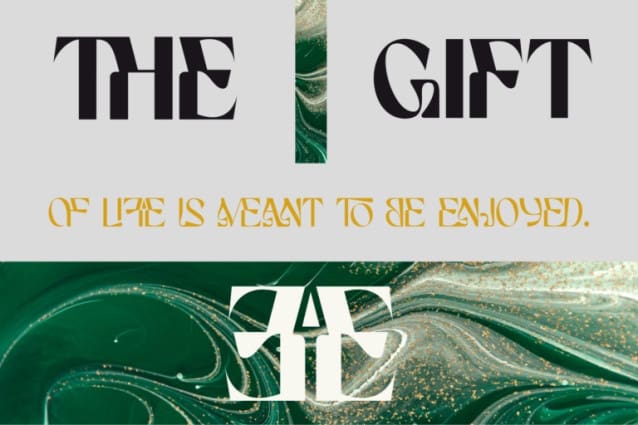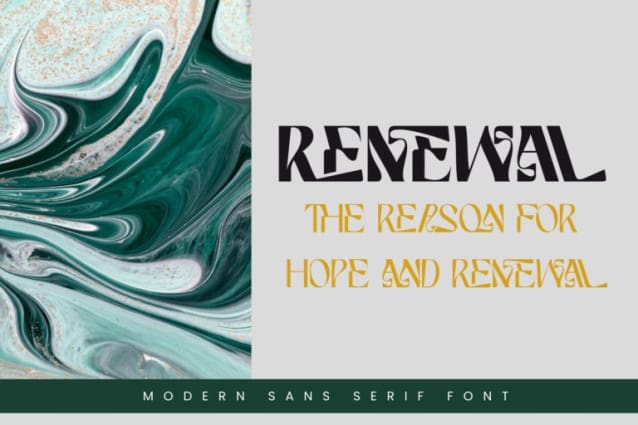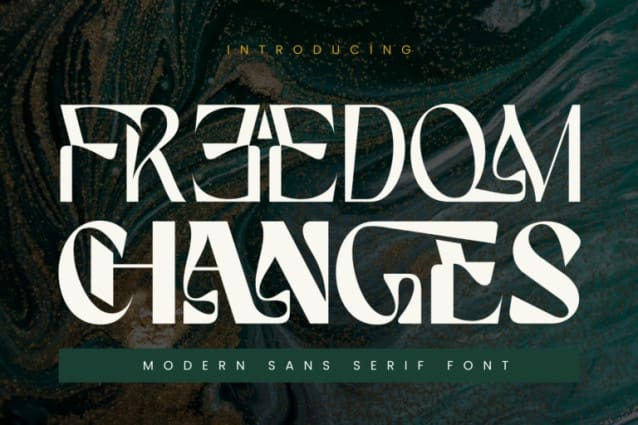
Freedom Changes Font
Freedom Changes Font – Elegant Luxury Sans Serif – Beauty Feminine Display Font. It’s an Elegant Beauty Luxury Sans Serif Font that embodies modern femininity and sophistication. Its sleek design offers a touch of luxury and elegance, making it perfect for projects that require a graceful and high-end aesthetic. Perfect for the purposes of designing templates, brochures, videos, advertising branding, logos, invitation, layout design, elegant crafting, beauty design and other.
Freedom Changes was built with OpenType features and includes 100 ligatures, alternate, numbers, punctuation, and it also supports other languages.
AC AD AL AN AR AS AT AU AV BE CA CE CH CO CT DE DI EA EC ED EE EL EM EN EP ER ES ET FE FO FR GE HA HE HI HO IE IC IL IN IO IR IS IT JU KE LA LE LI LL LO LY MA ME MI NC ND NE NG NO NT NS OC OF OM ON OO OP OR OT OU OW PA PR RA RD RE RI RO RS RT SE SH SI SO SS ST TA TE TH TI TO TR TT UM UN UR VE WI WO